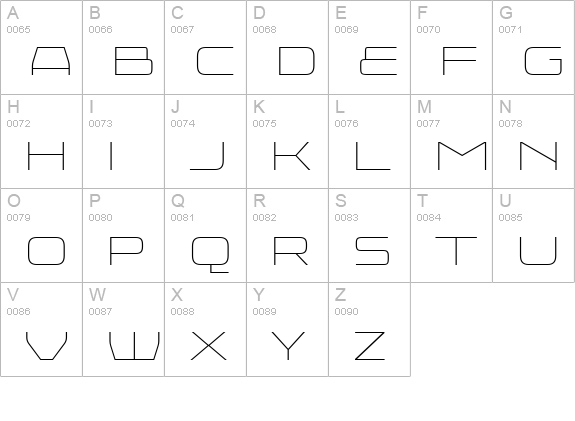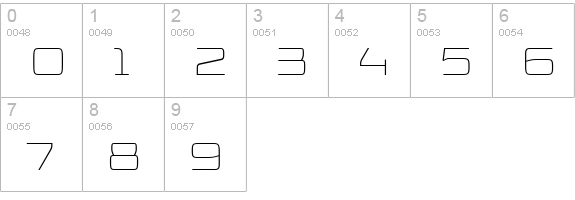
Injekuta Lt Font Details
Injekuta Lt font is a versatile and modern typeface that exudes sophistication and style. With its elegant lines and distinct design, this font is perfect for a wide range of design projects, from branding to editorial design. The clean and sleek look of Injekuta Lt font makes it a popular choice among designers looking for a timeless and professional typeface. The best part? Injekuta Lt font is available for free download at FontsMarket.com. This means you can easily access this high-quality font without having to break the bank. Whether you are a seasoned designer or just starting out, Injekuta Lt font is a valuable addition to your font library. Don't miss out on the opportunity to enhance your designs with this beautiful and free typeface. Download Injekuta Lt font today and elevate your projects to the next level!